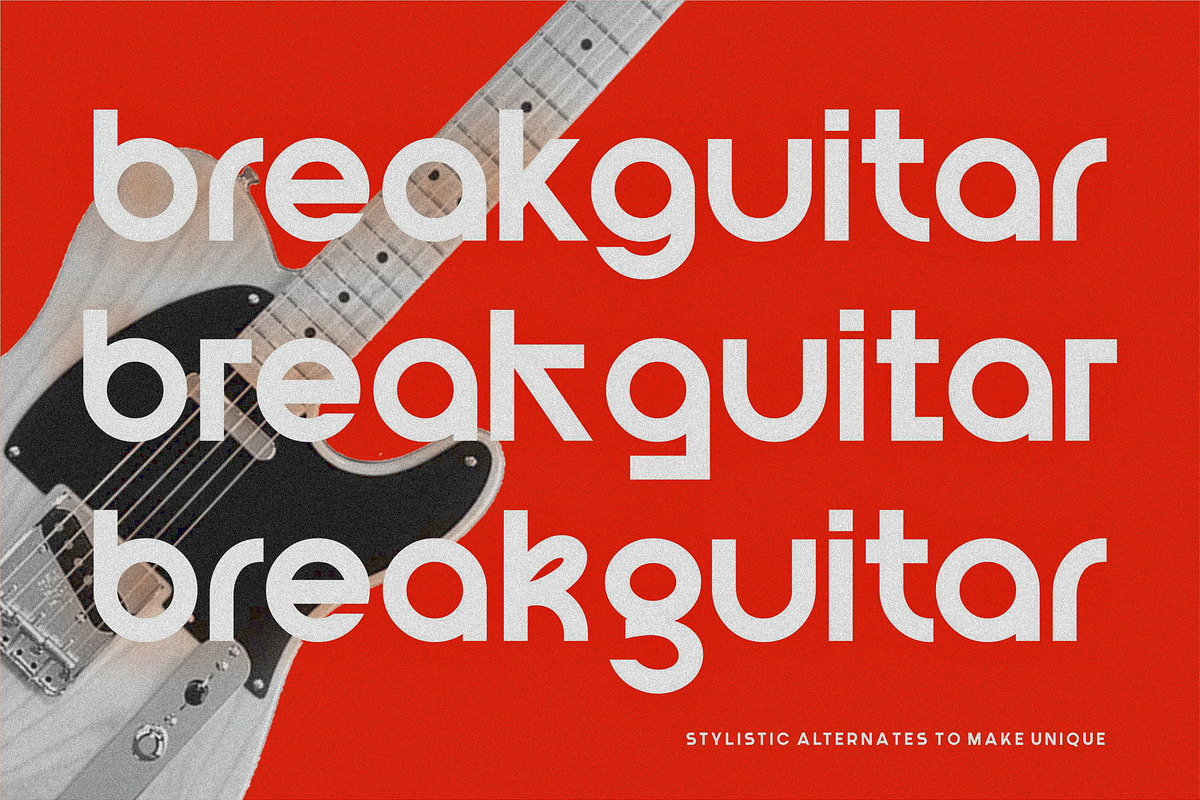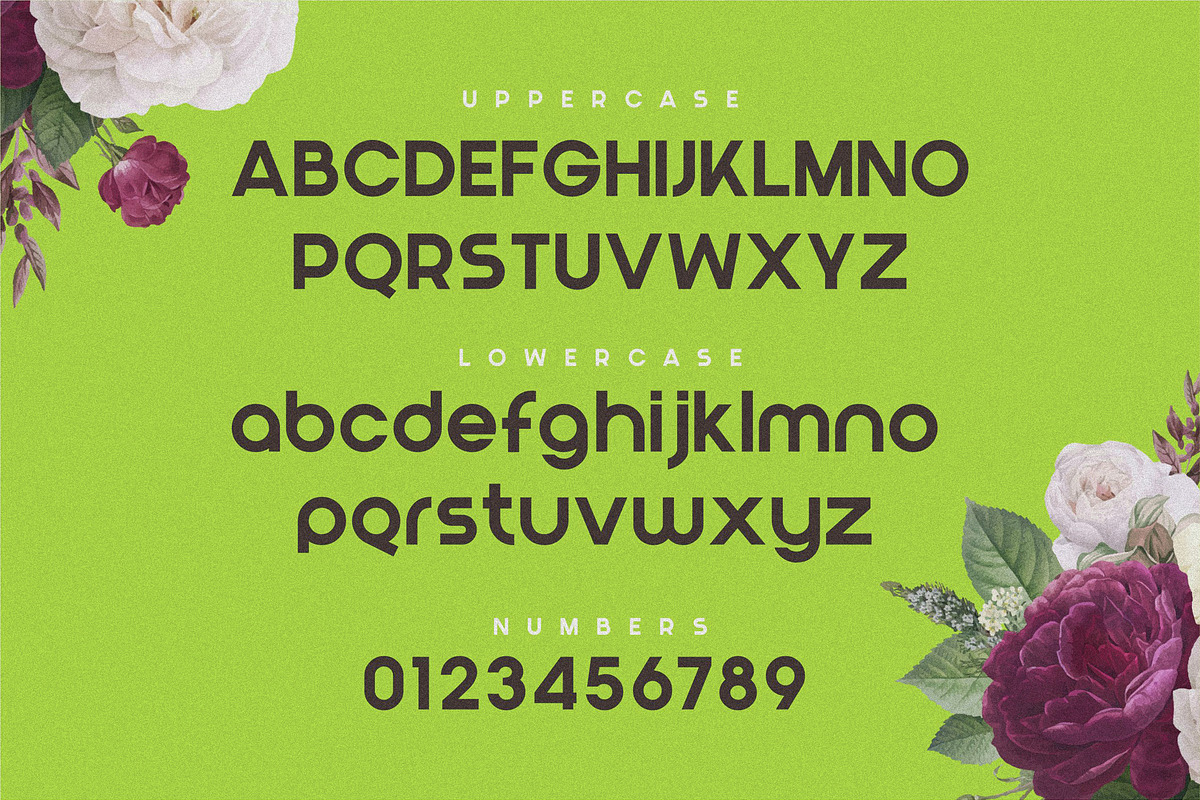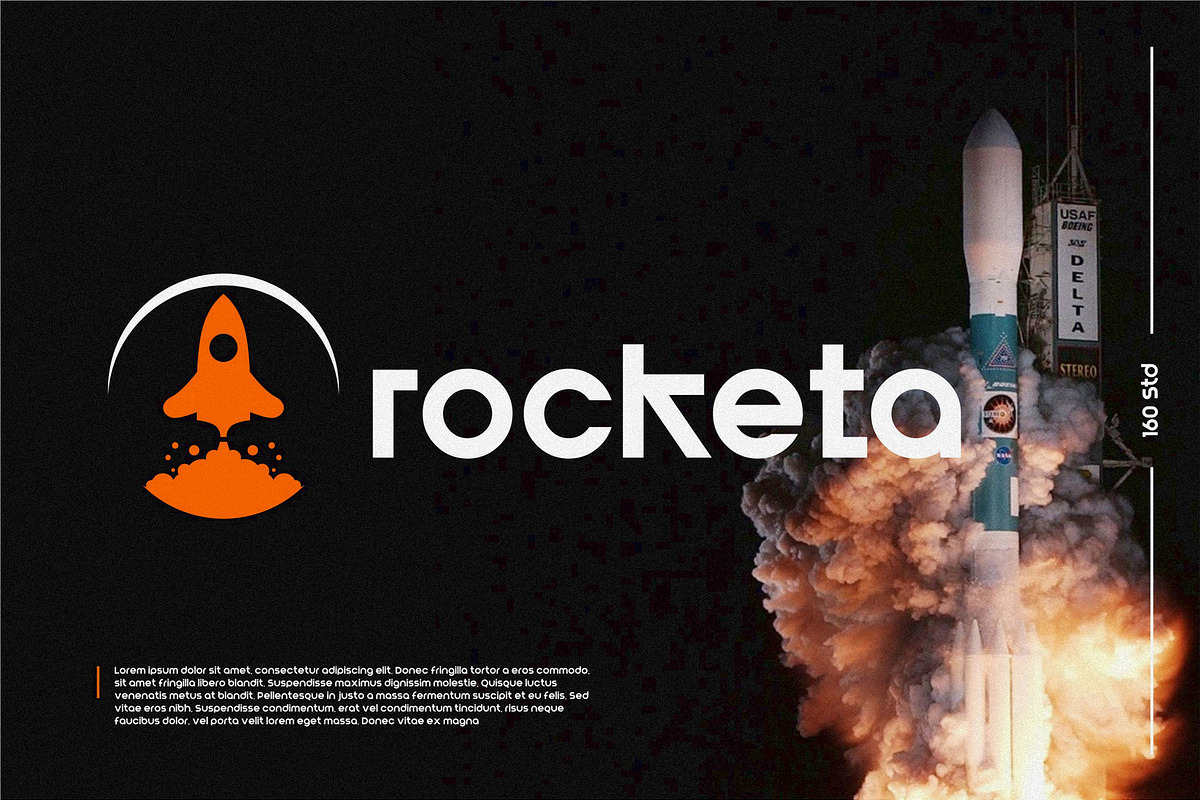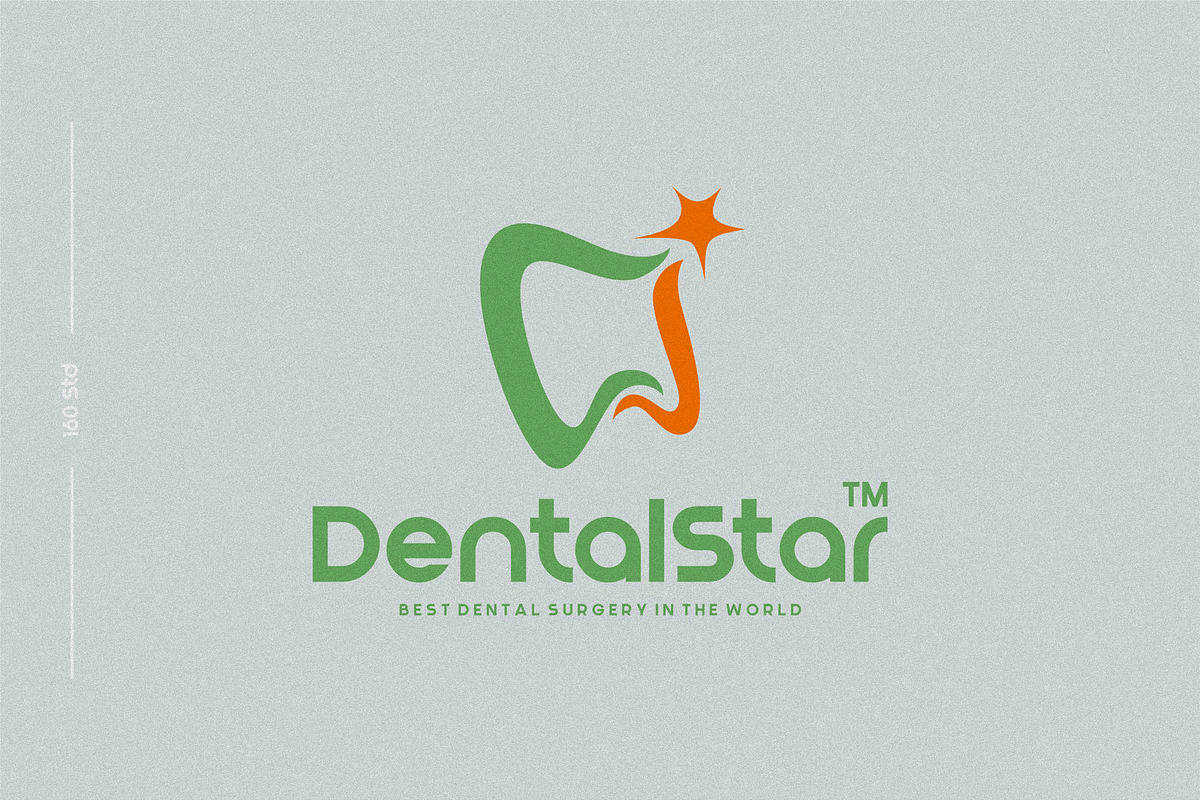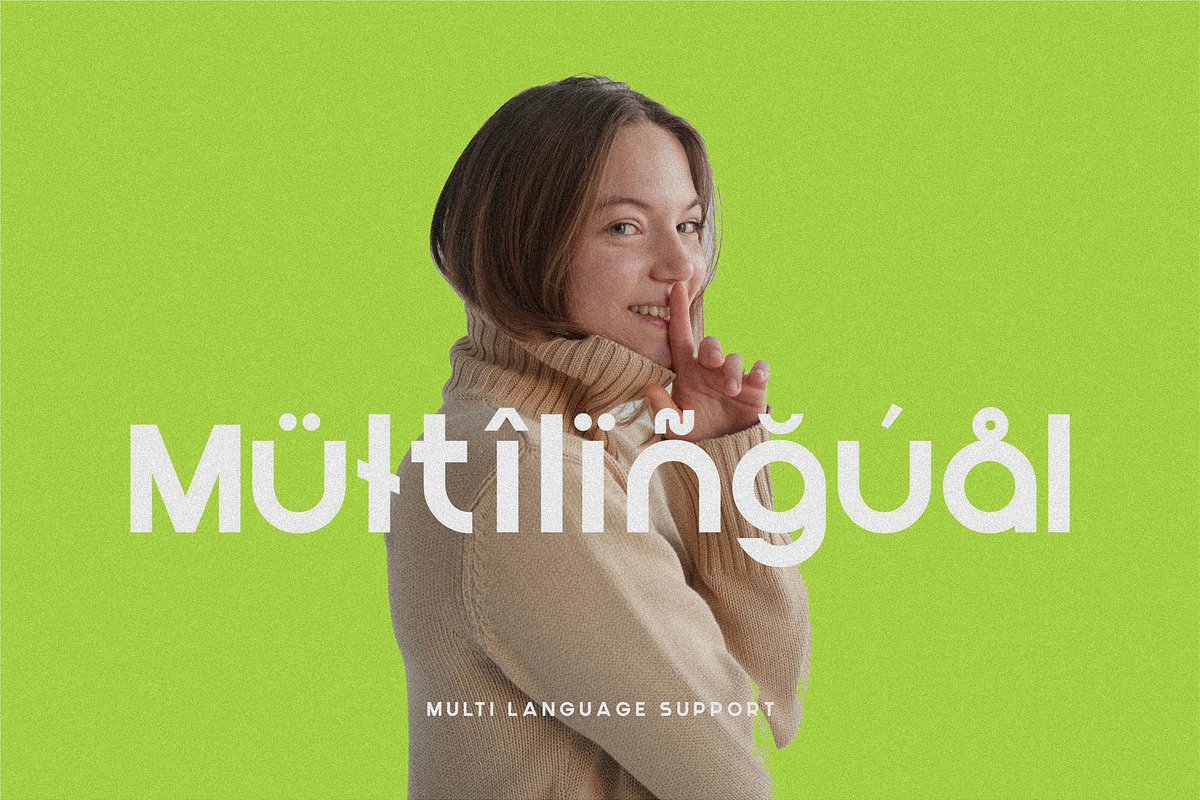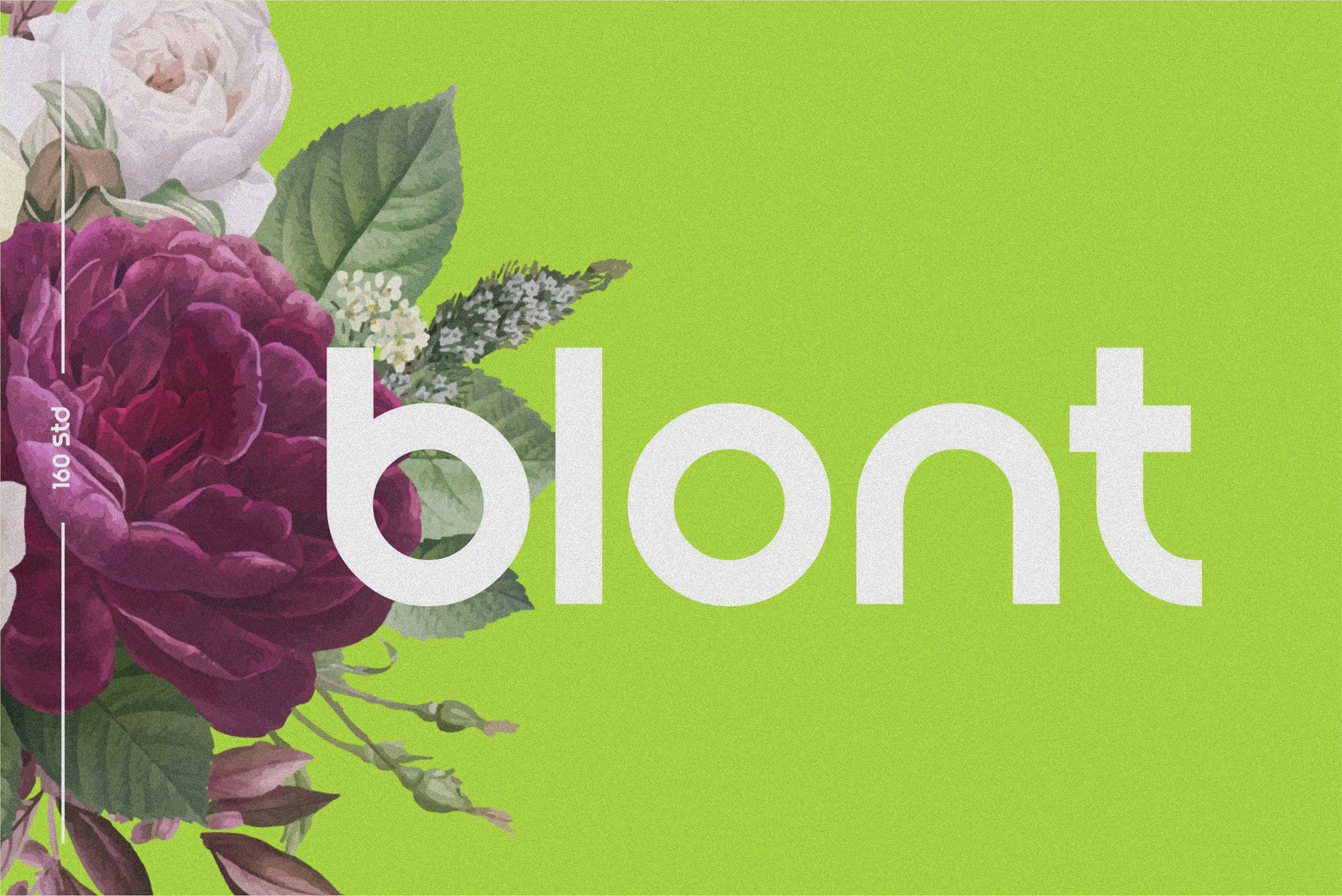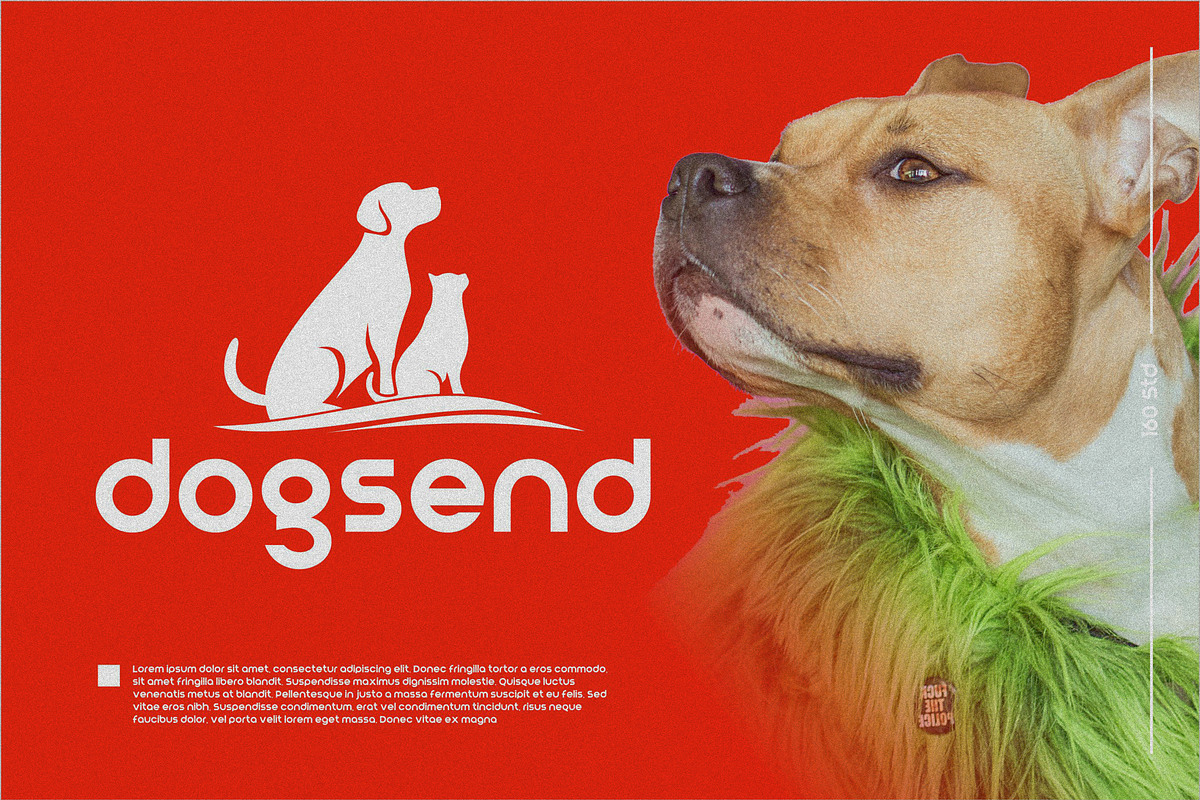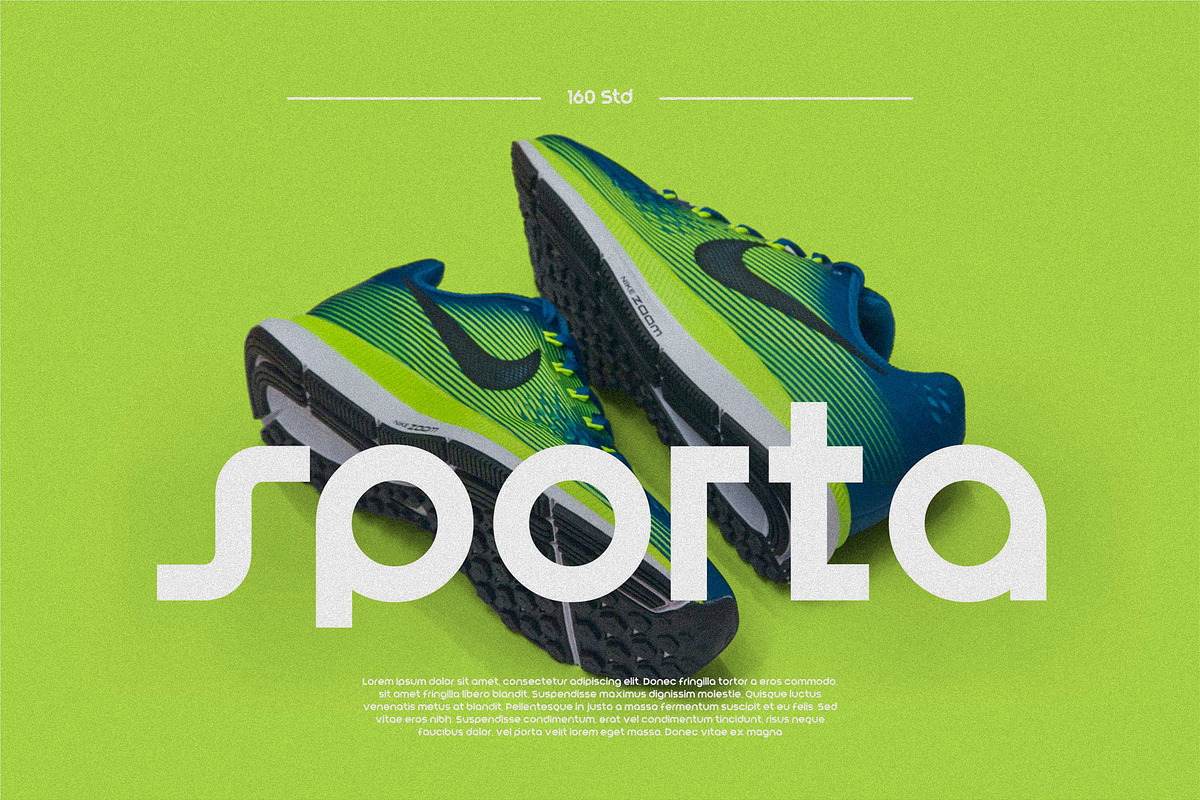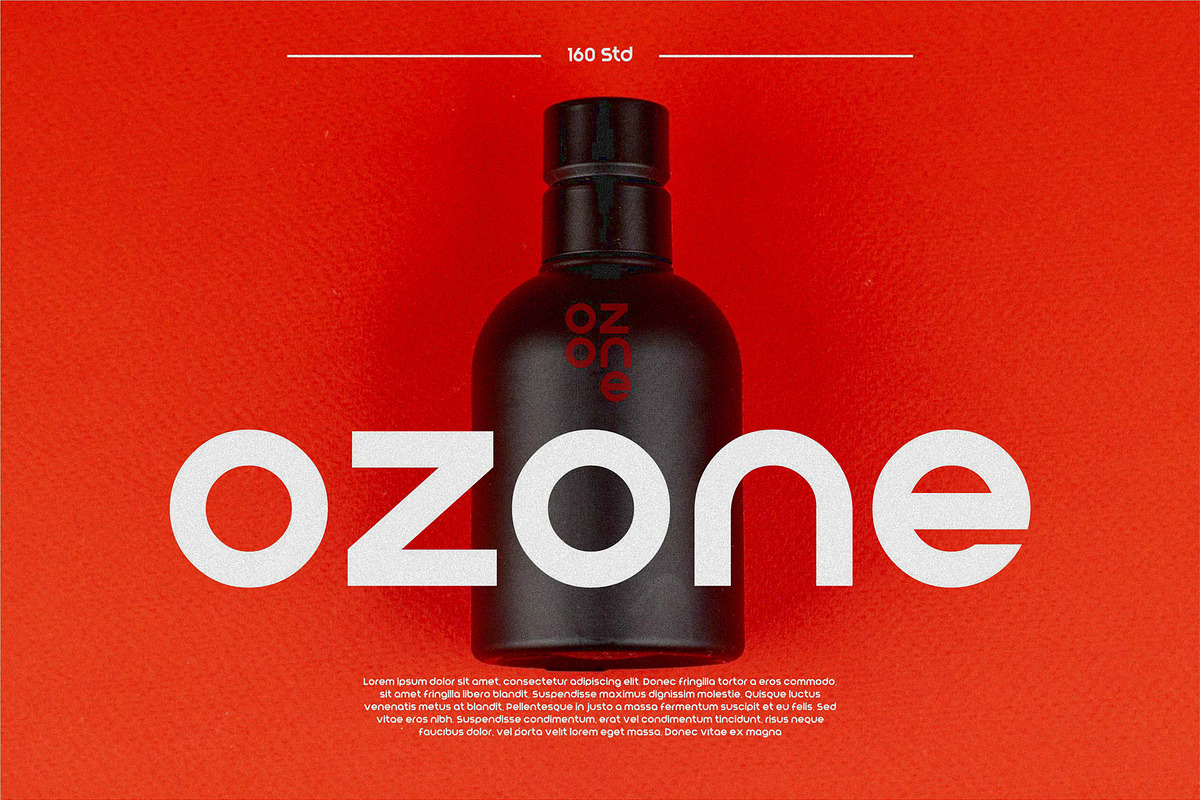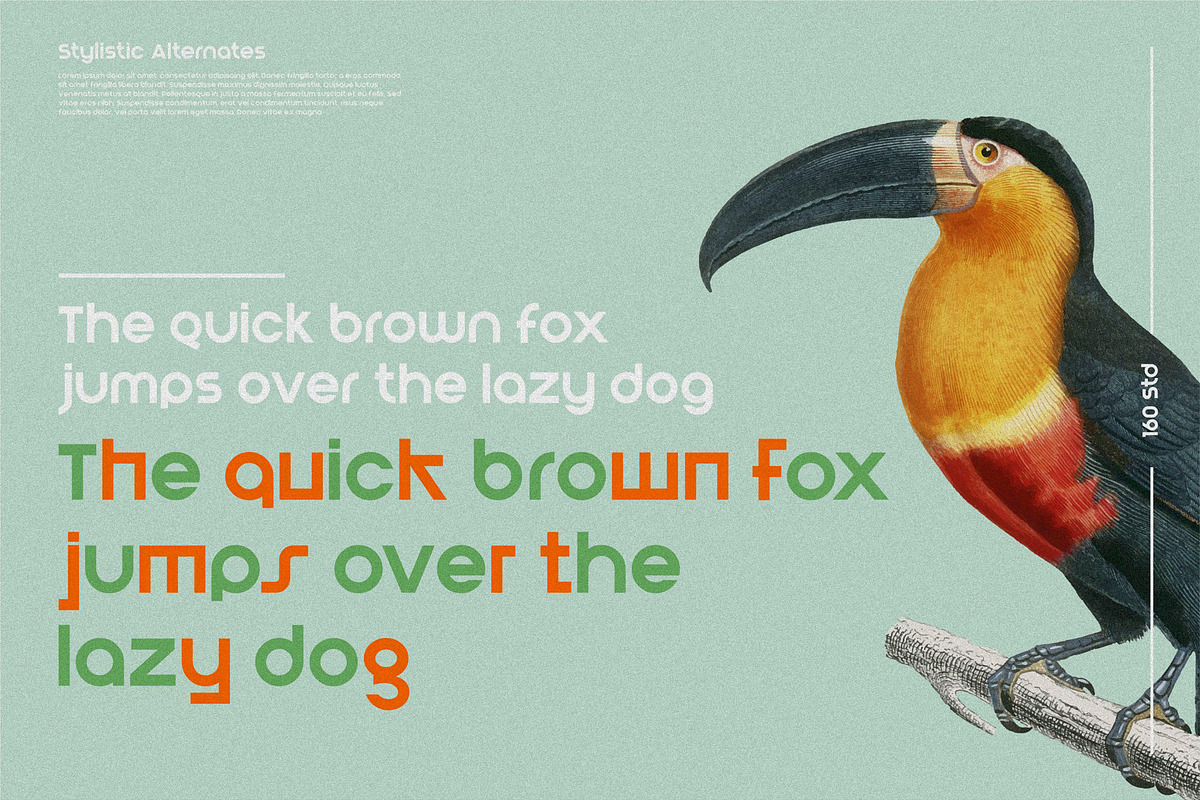
Blont | Modern & Clean Logo Font
Blont
Perfect for logos.
but also suaitable for headlines, titles and posters.
comes with alternates to make unique, you can choose the best for you.
UPDATE : V2 = Round and Italic version